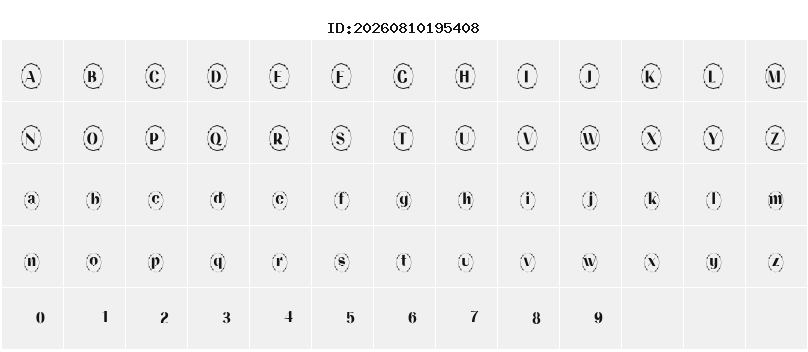
About Qintar.ttf
Qintar.ttf is a modern, elegant sans-serif font designed for ultimate readability and visual harmony. Perfect for branding, headlines, web design, and print materials.